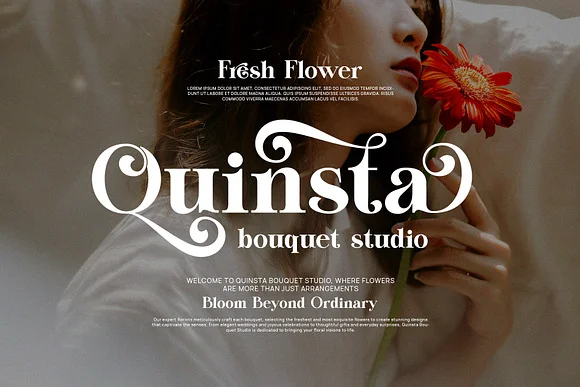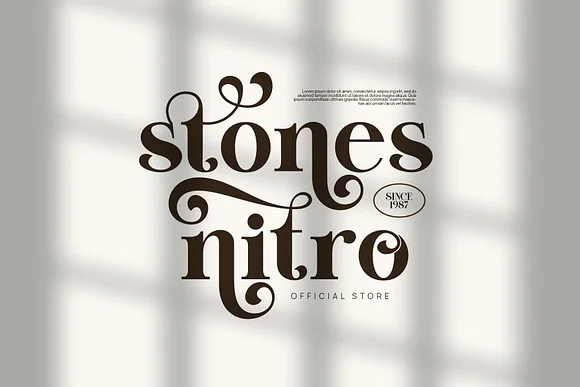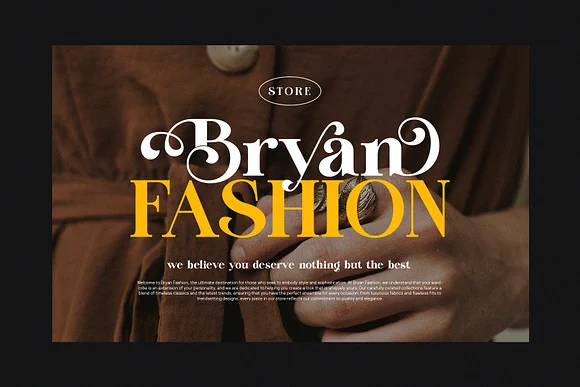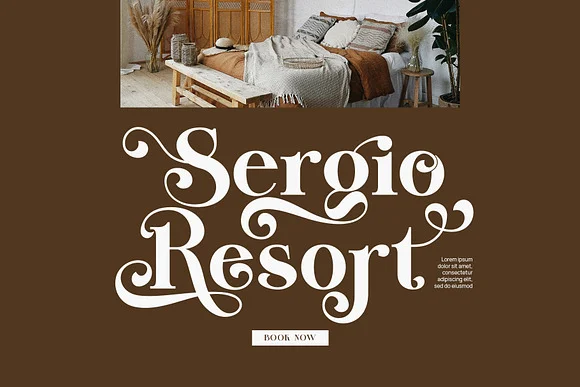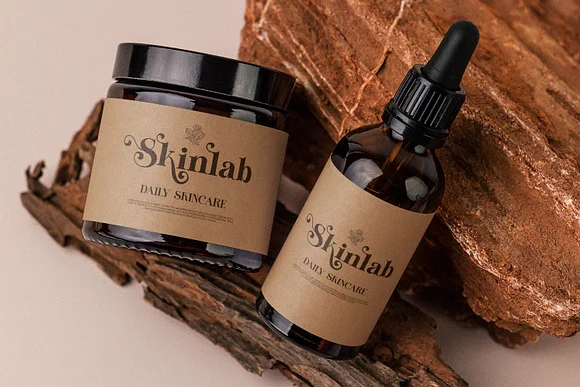
Ralika Ligature Serif Font
Ralika Ligature Serif combines clean construction with expressive detail, making it a dependable asset in any type toolkit.